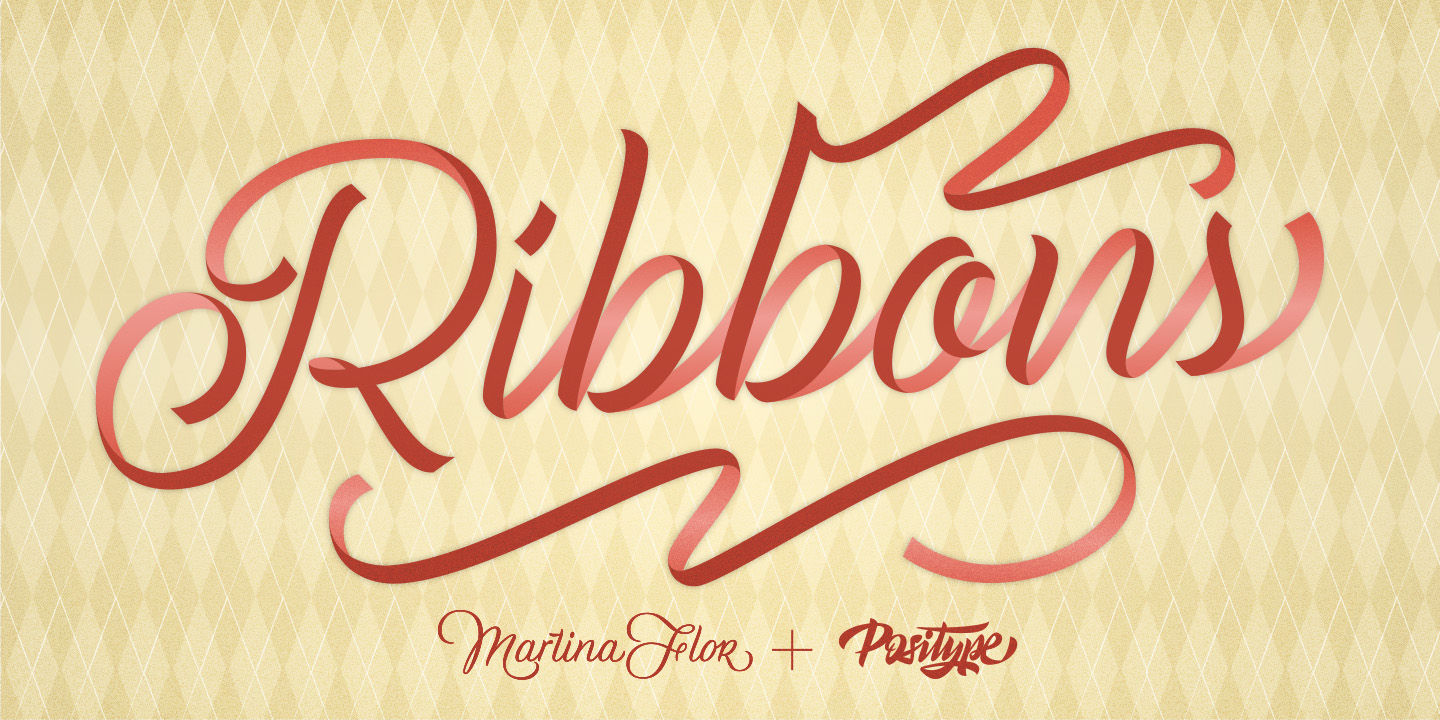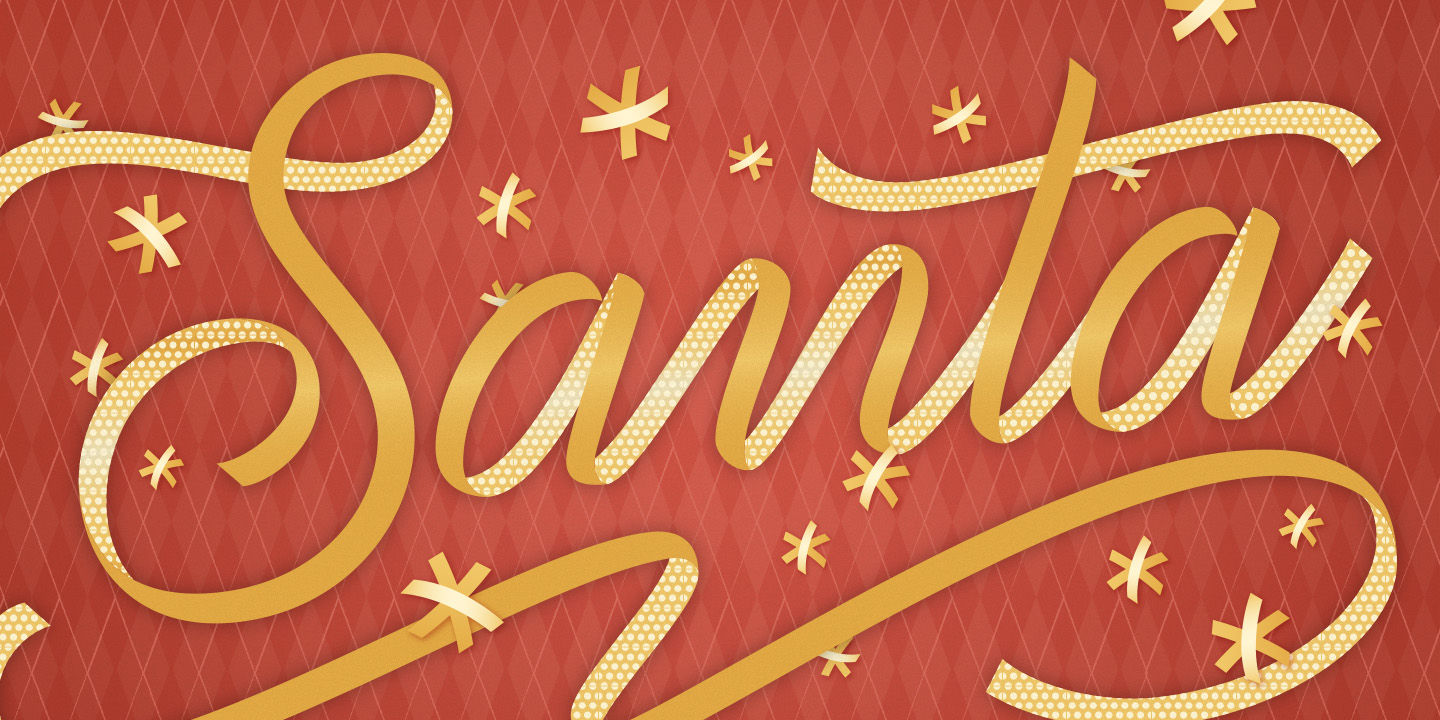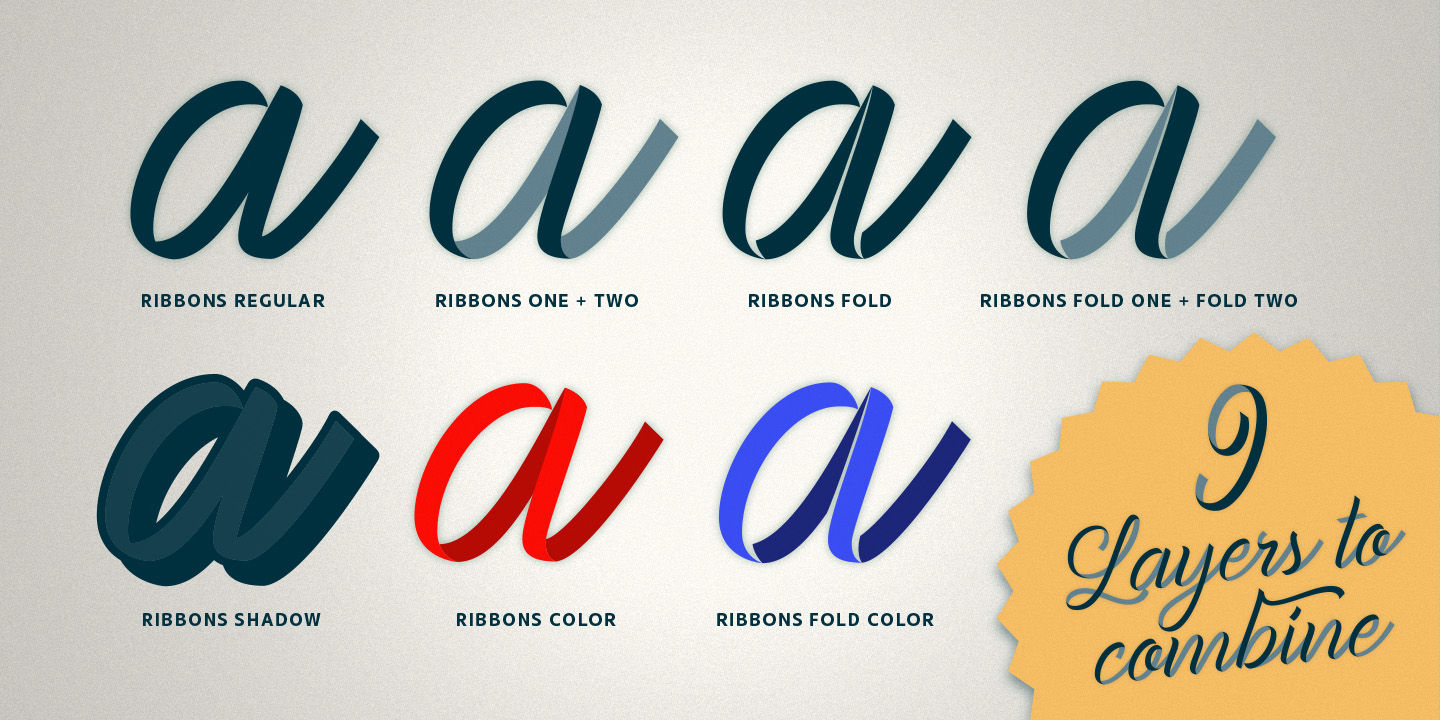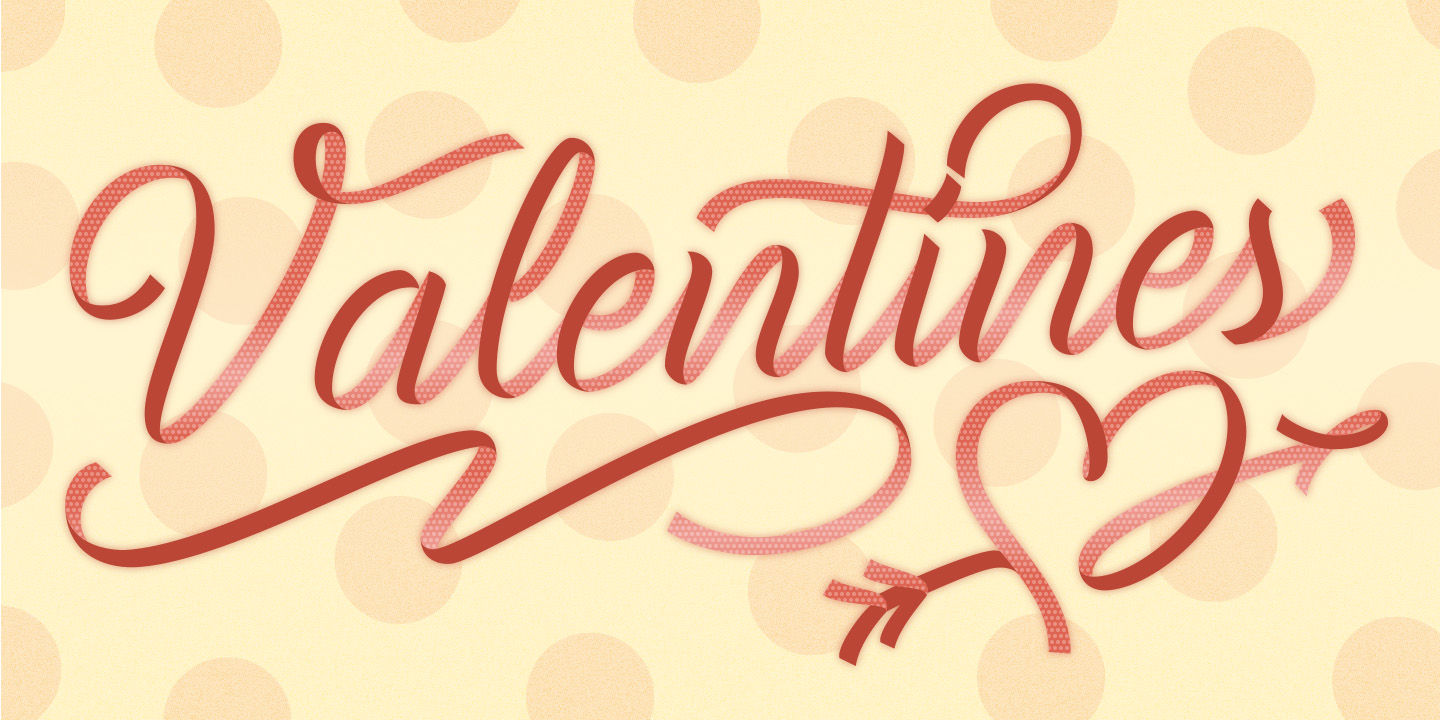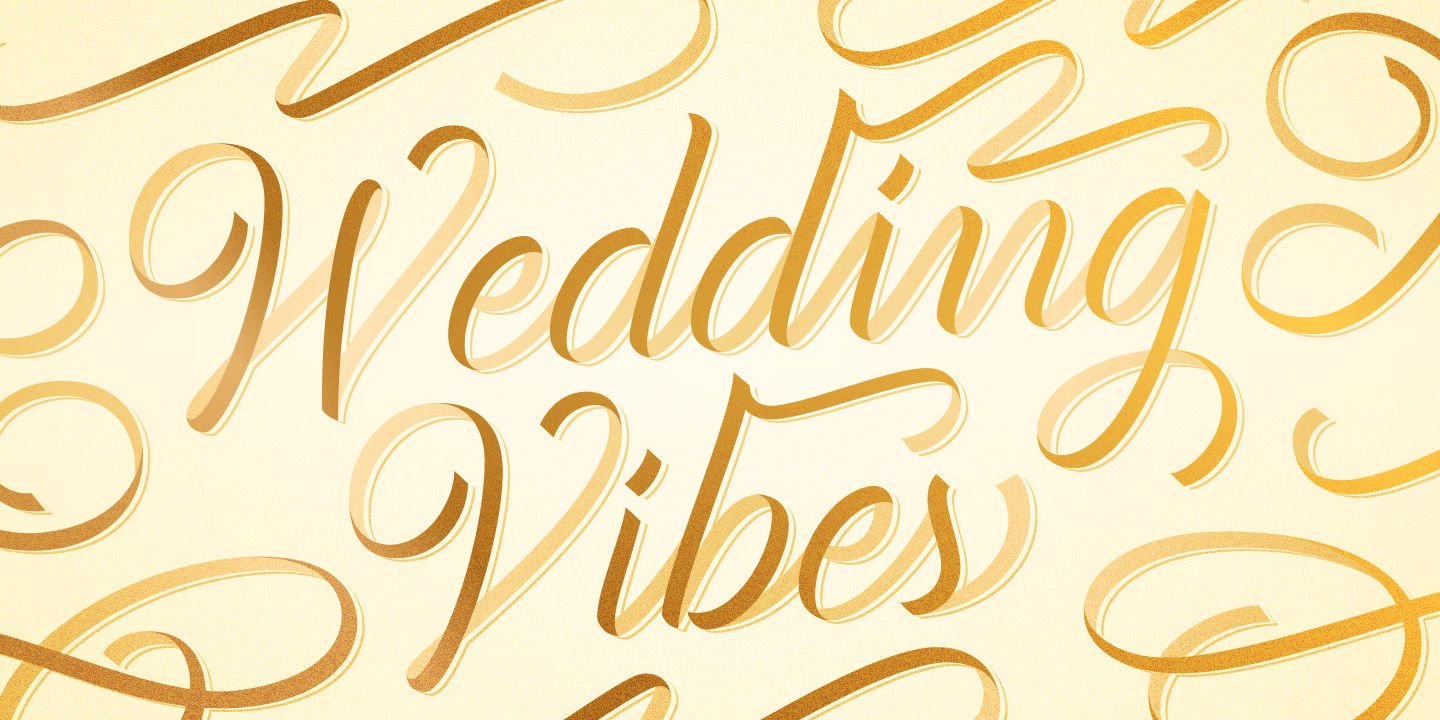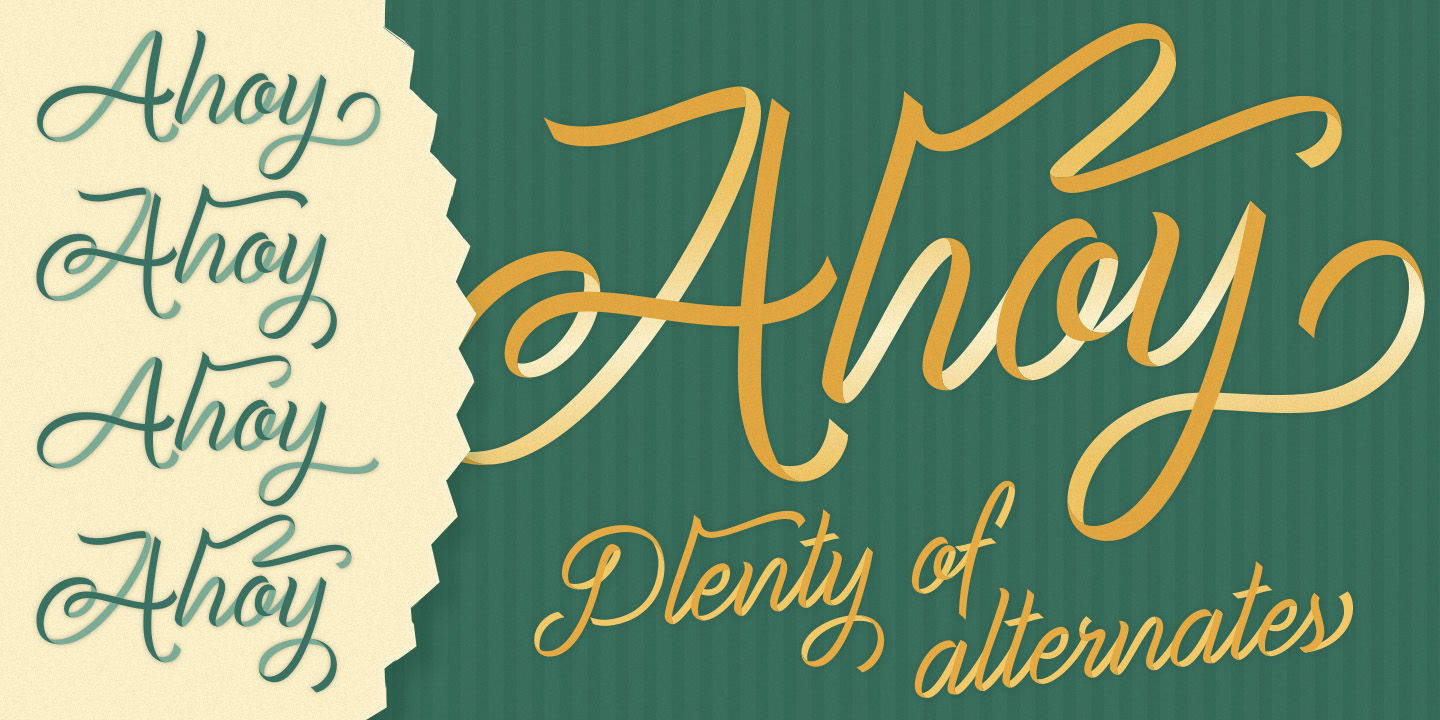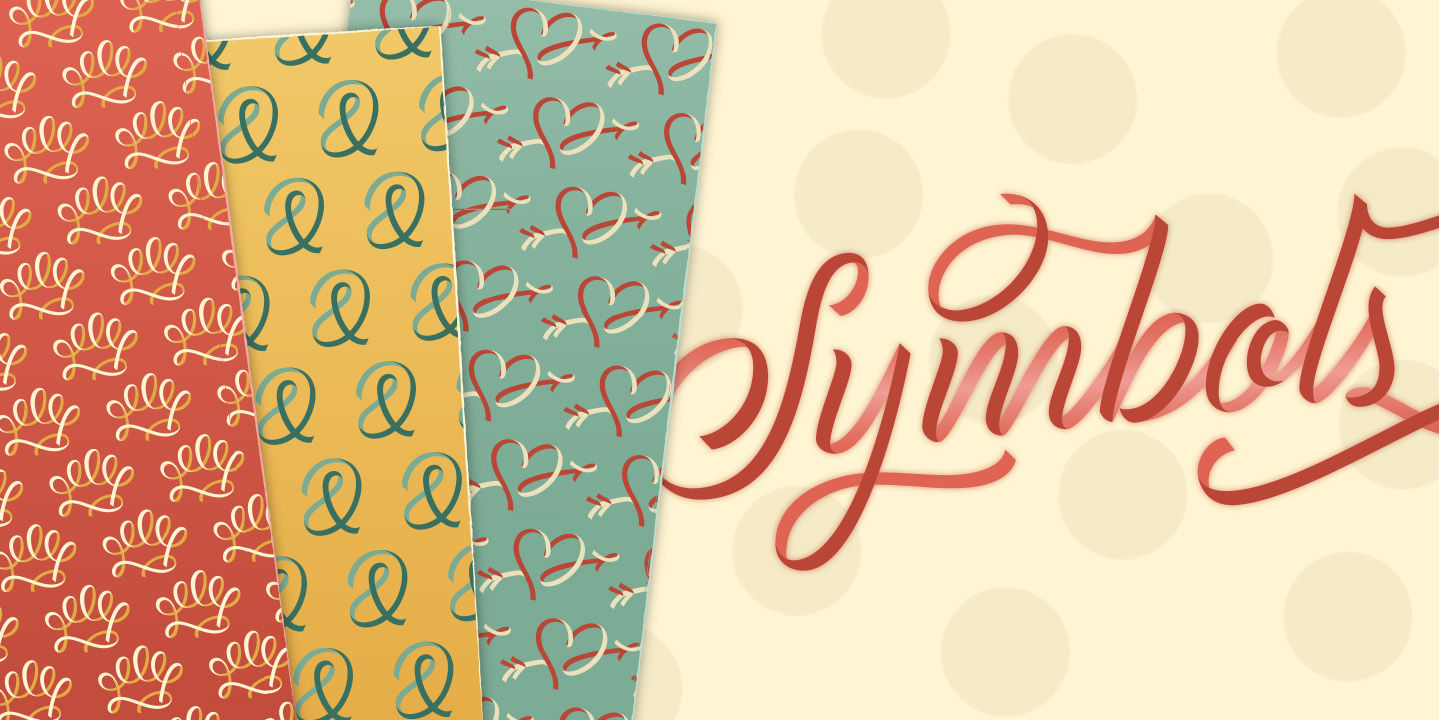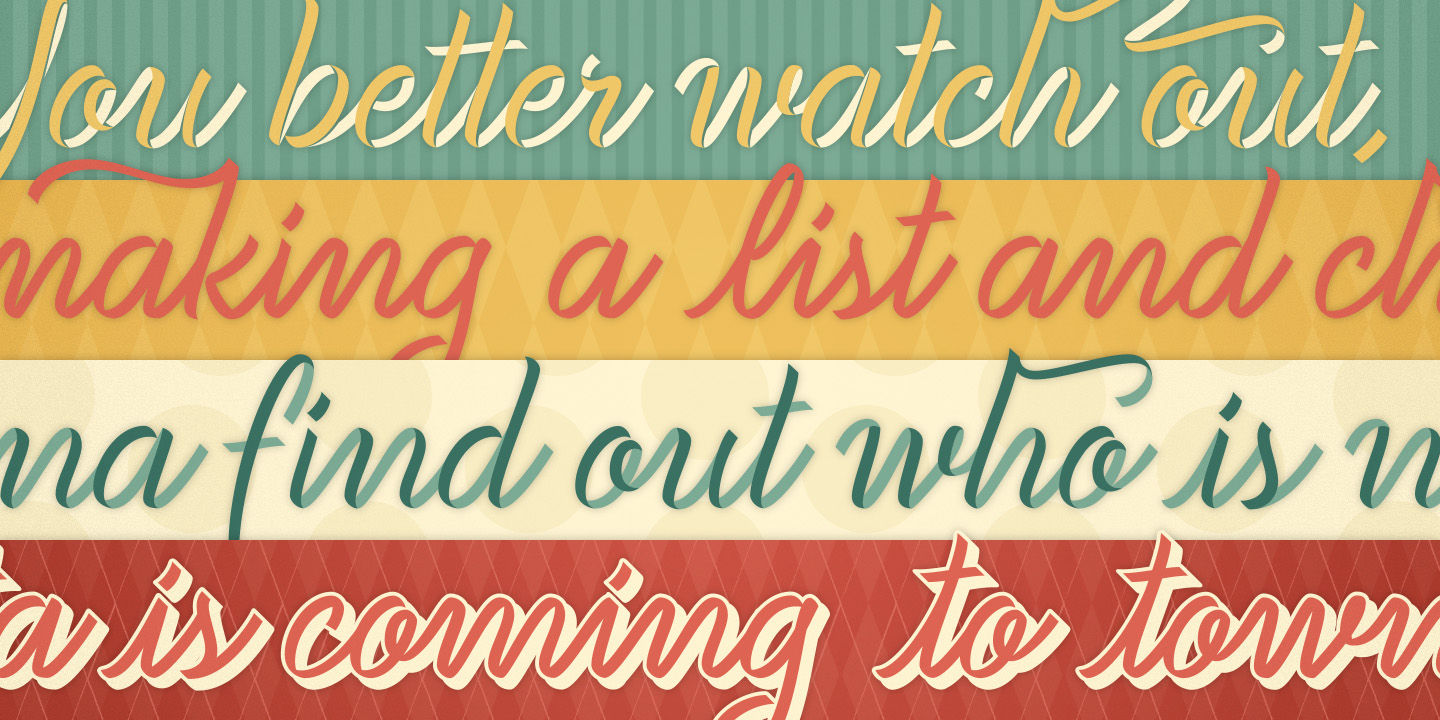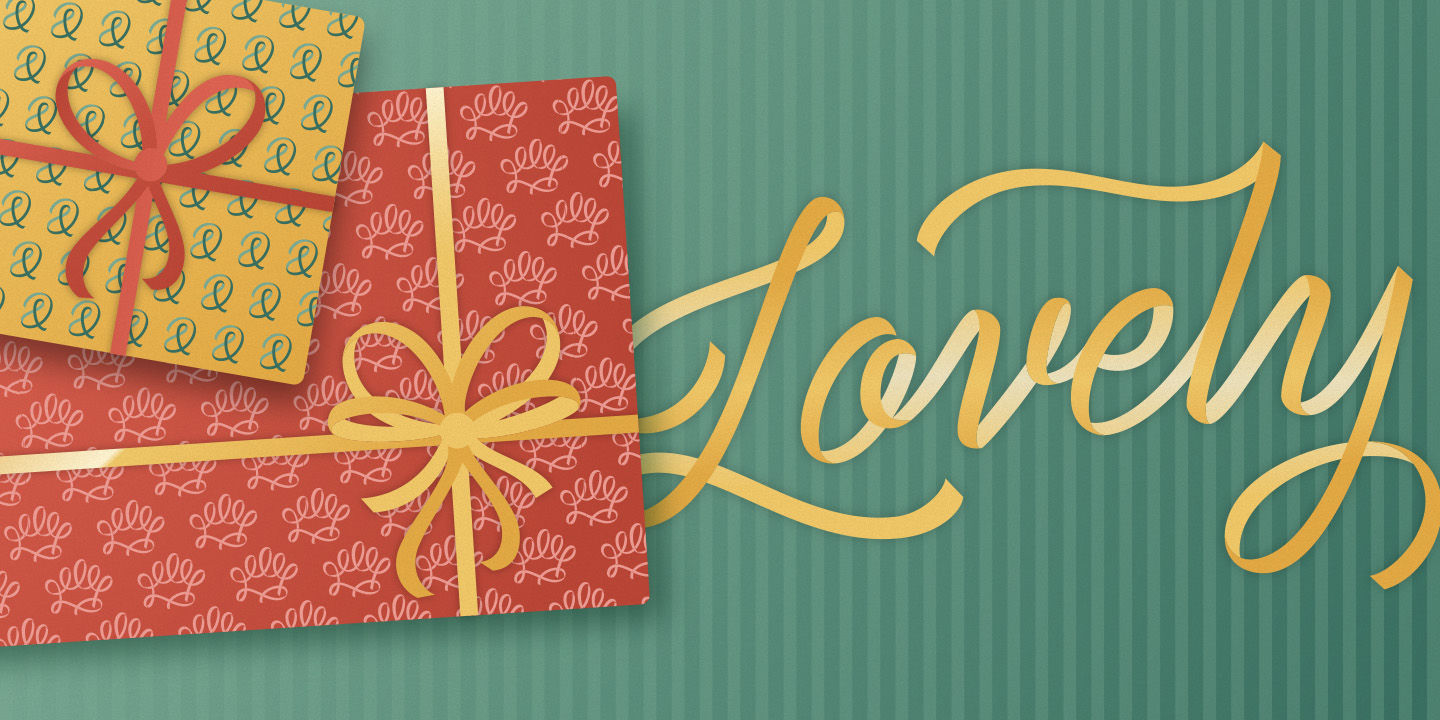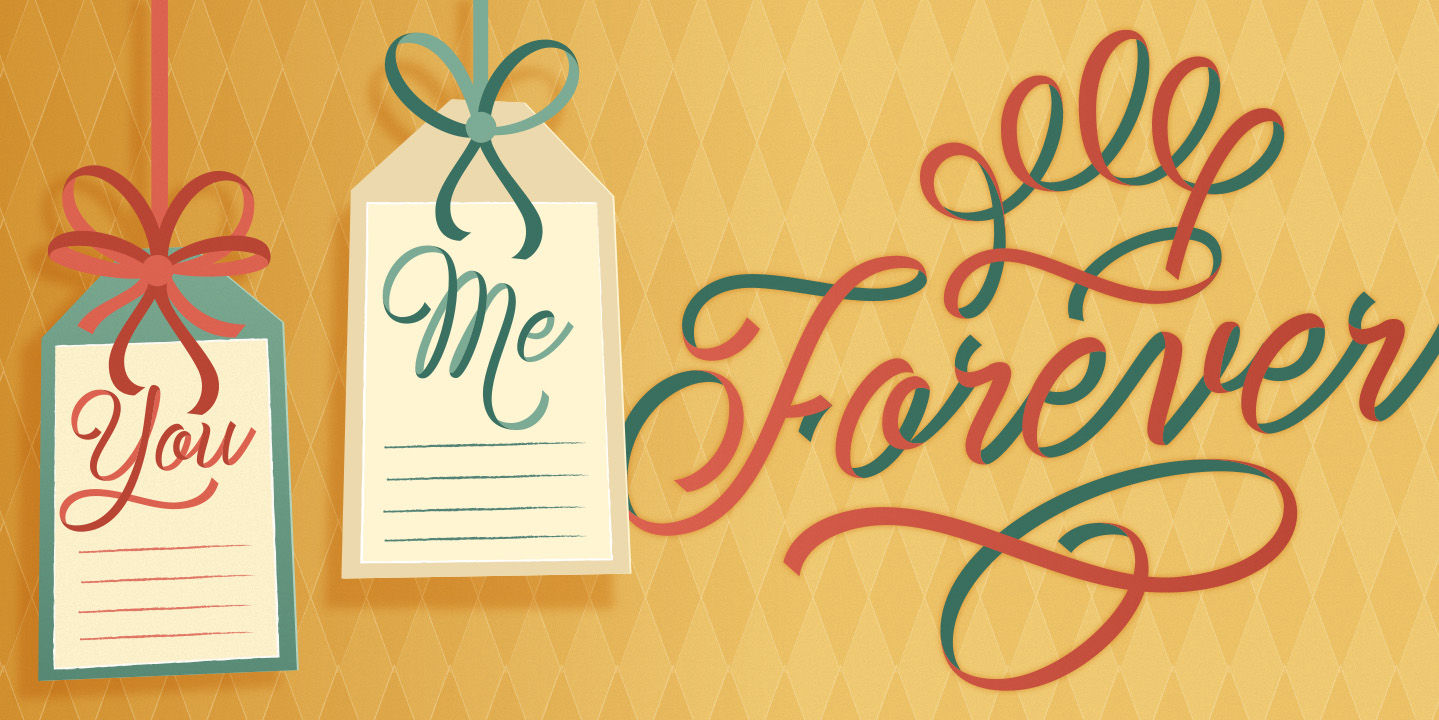
Ribbons
Ribbon type. Holy grail of complex-lettering-turned typeface or an elusive Loch Ness monster that is often teased, possibly seen in the wild, but never confirmed? From the amazing lettering artist and author Martina Flor and masterful type designer Neil Summerour, comes the aptly named Ribbons. Ribbons is a sincere and well-conceived approach to providing a reliable solution to ribbon and ribbon-styled type for creative professionals when a lettering artist just isn’t available.
Ribbons provides both flat and ‘folded’ options with the Regular and Fold styles, but then raises the bar with separate layer styles that will allow you to easily create the elegant back and forth movements produced with ribbon-style lettering we have all come to appreciate. These layer options are provided in both ‘smooth’ and ‘pleated’ connected styles.
Flor and Summerour didn’t stop there. Each typeface was expanded with a number of stylistic alternates, additional swashed and flourished letters, ligatures, and even more in order to provide as many decorative options as possible to the creative. To round out the nine fonts available in the typeface and to ‘put a bow on it’, they’ve added a separate Shadow style and two different color fonts (available exclusively with family purchases).